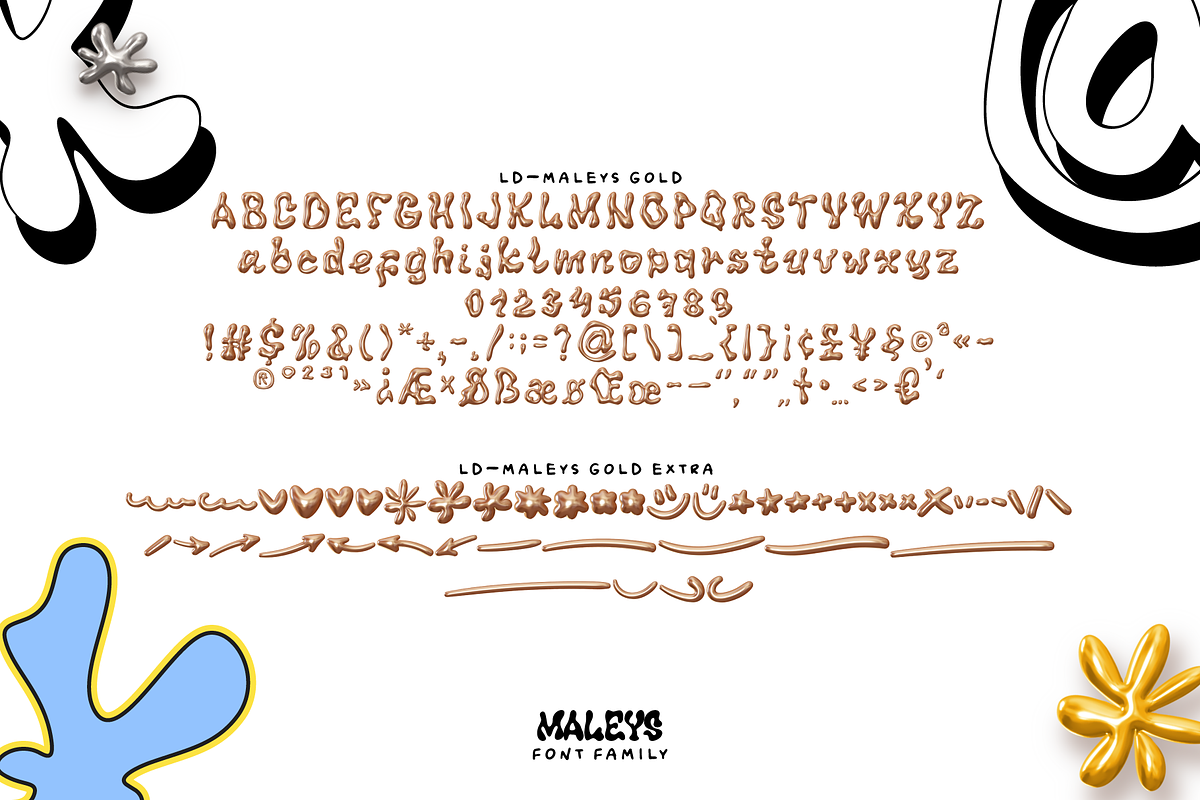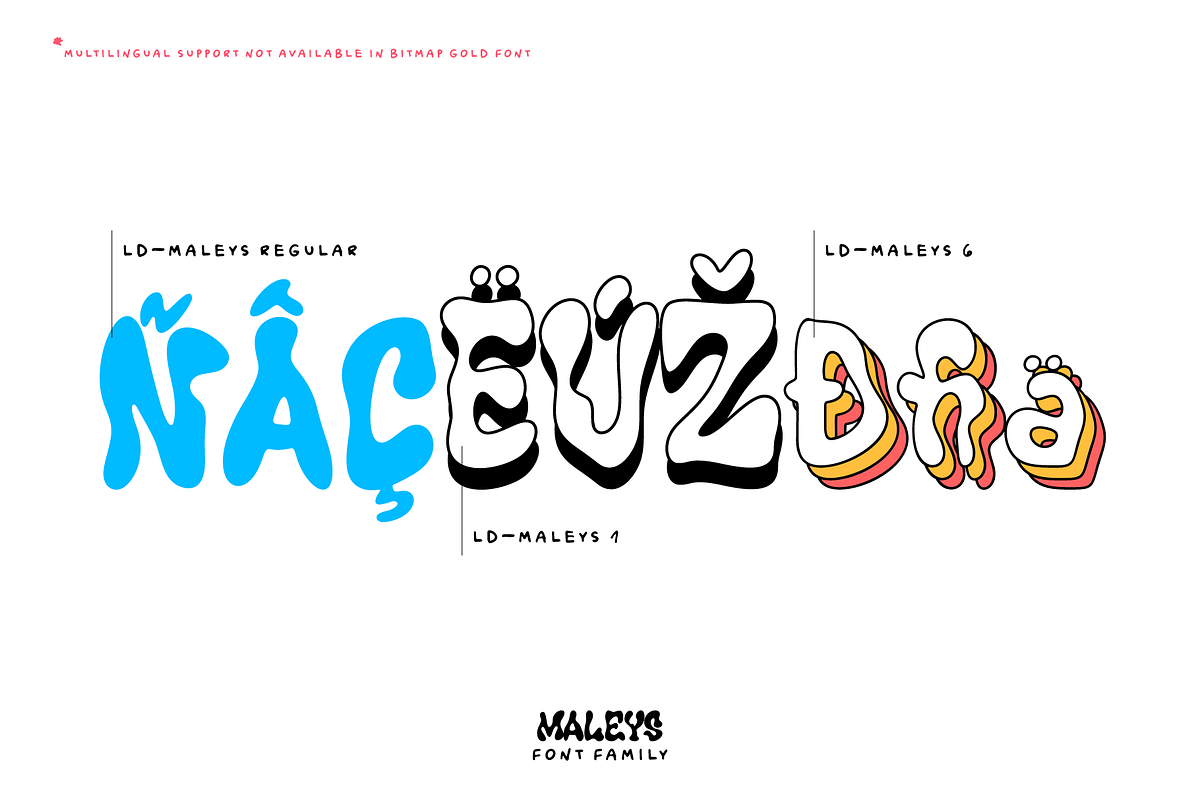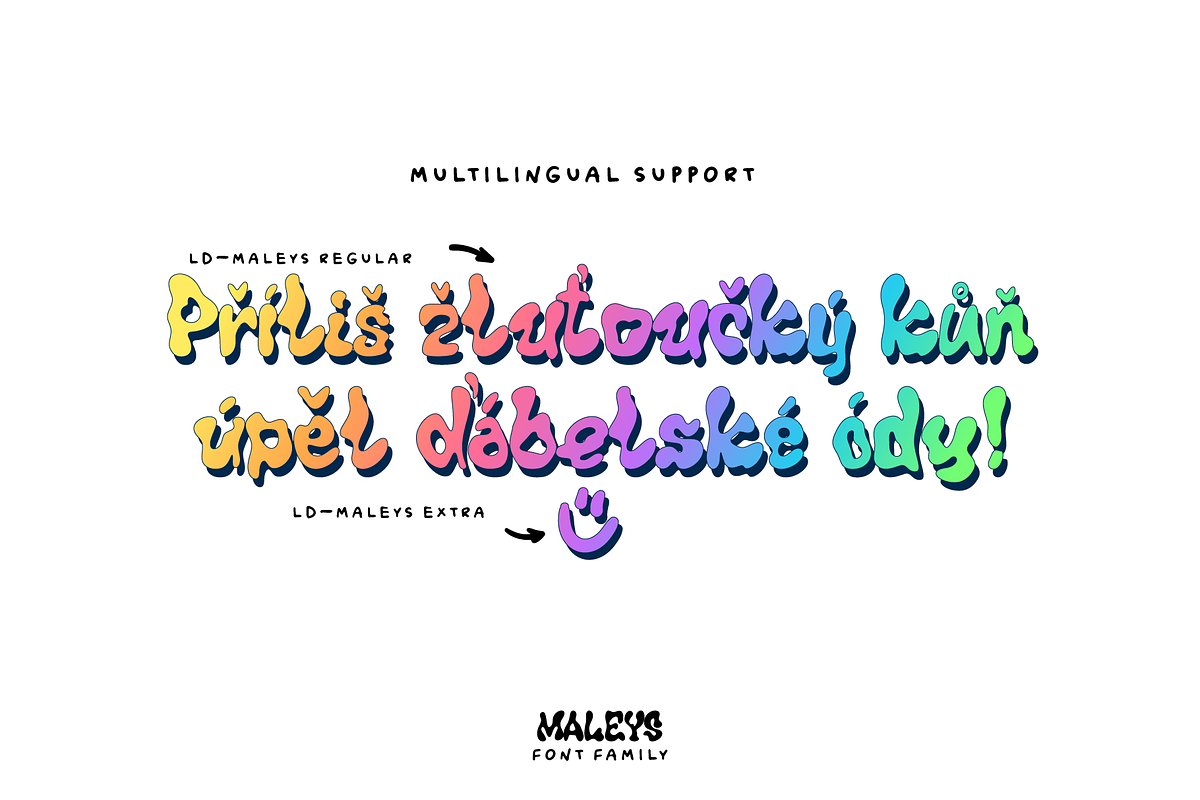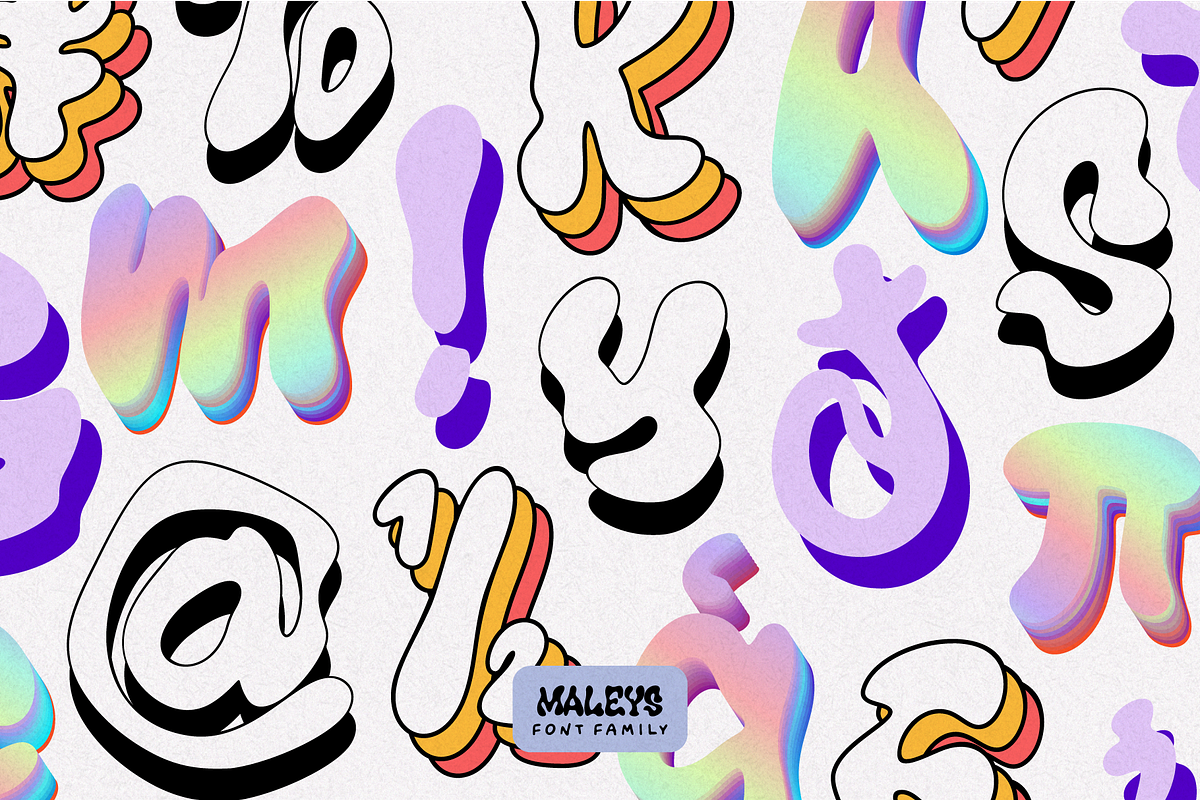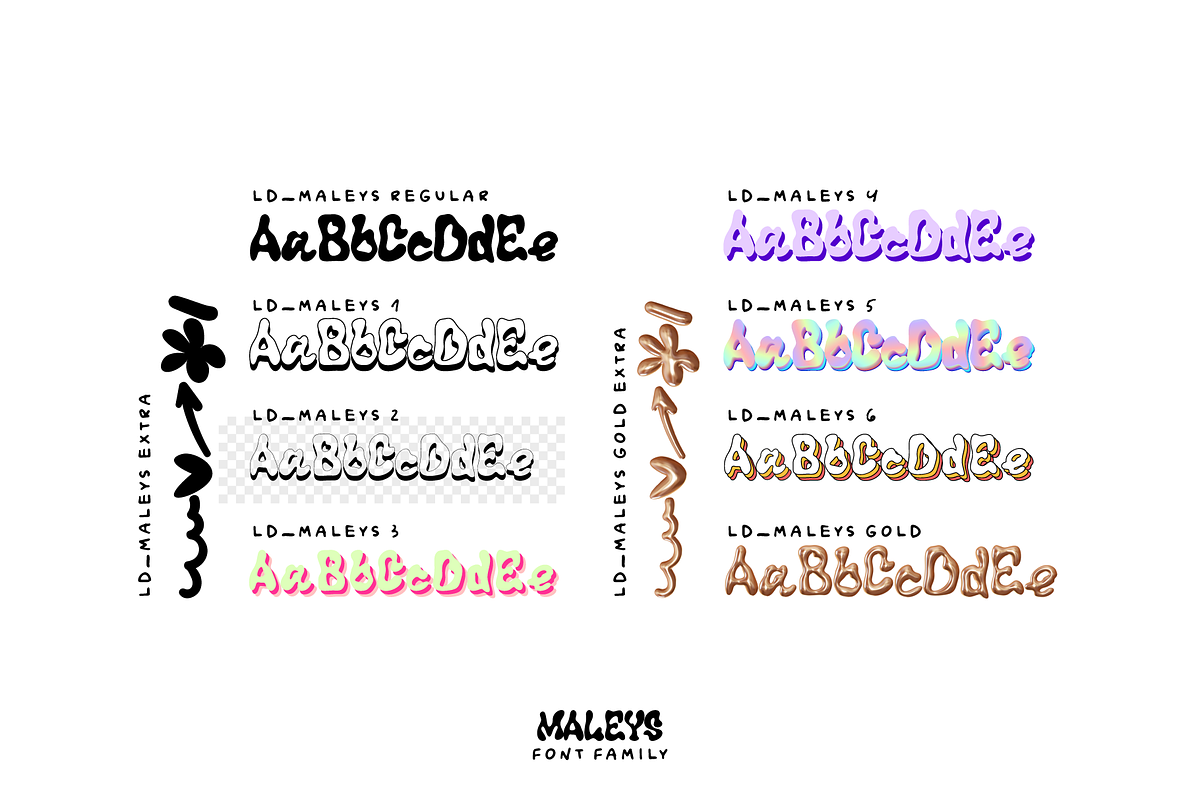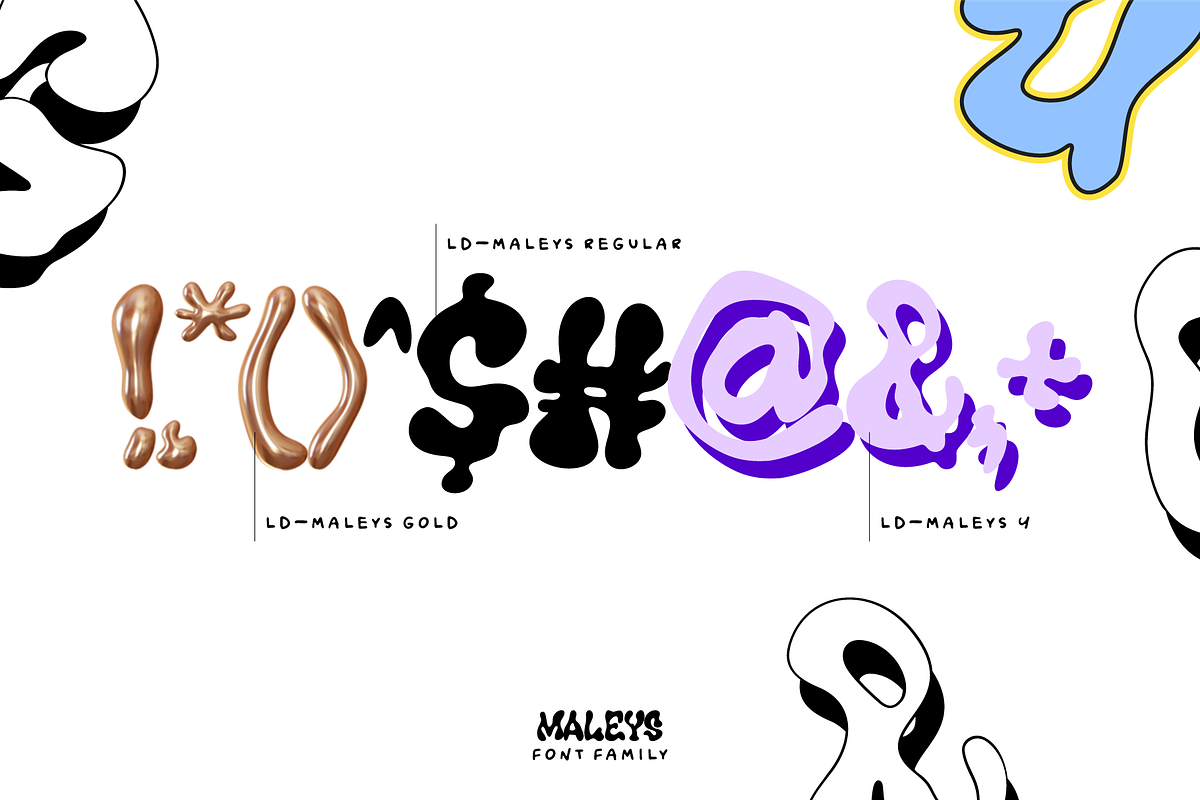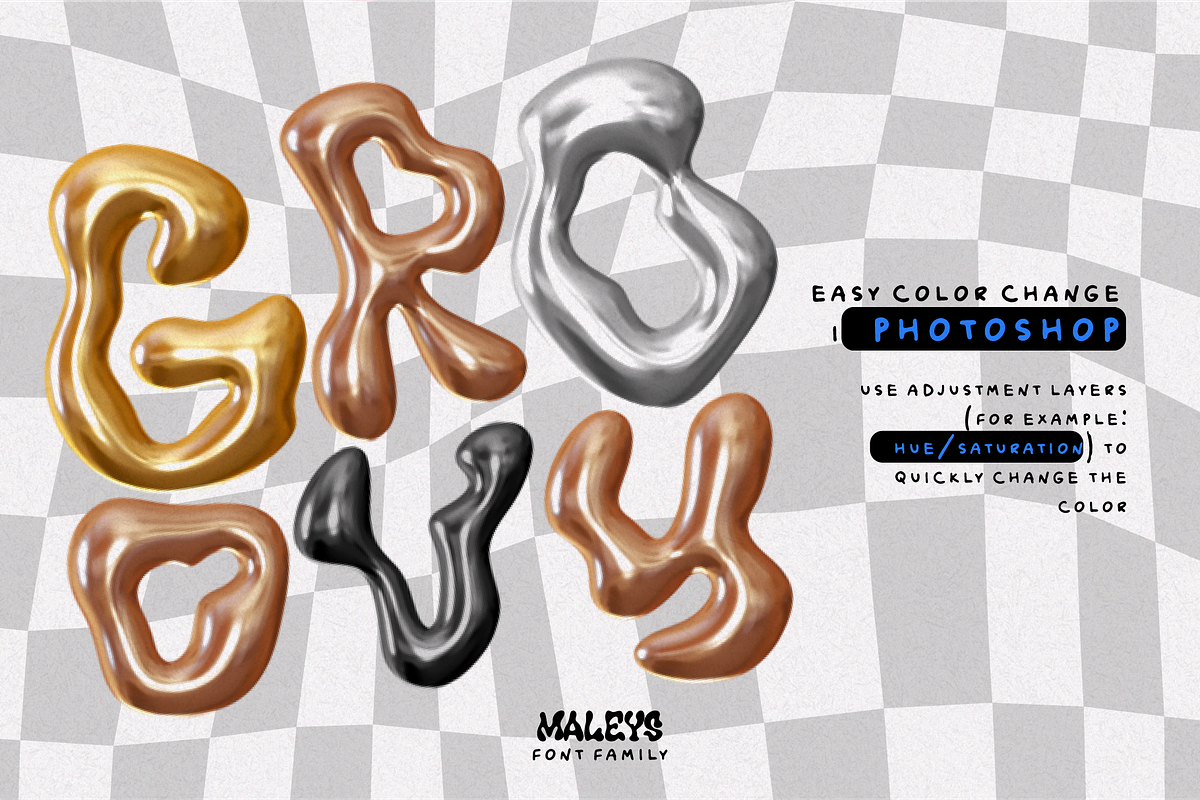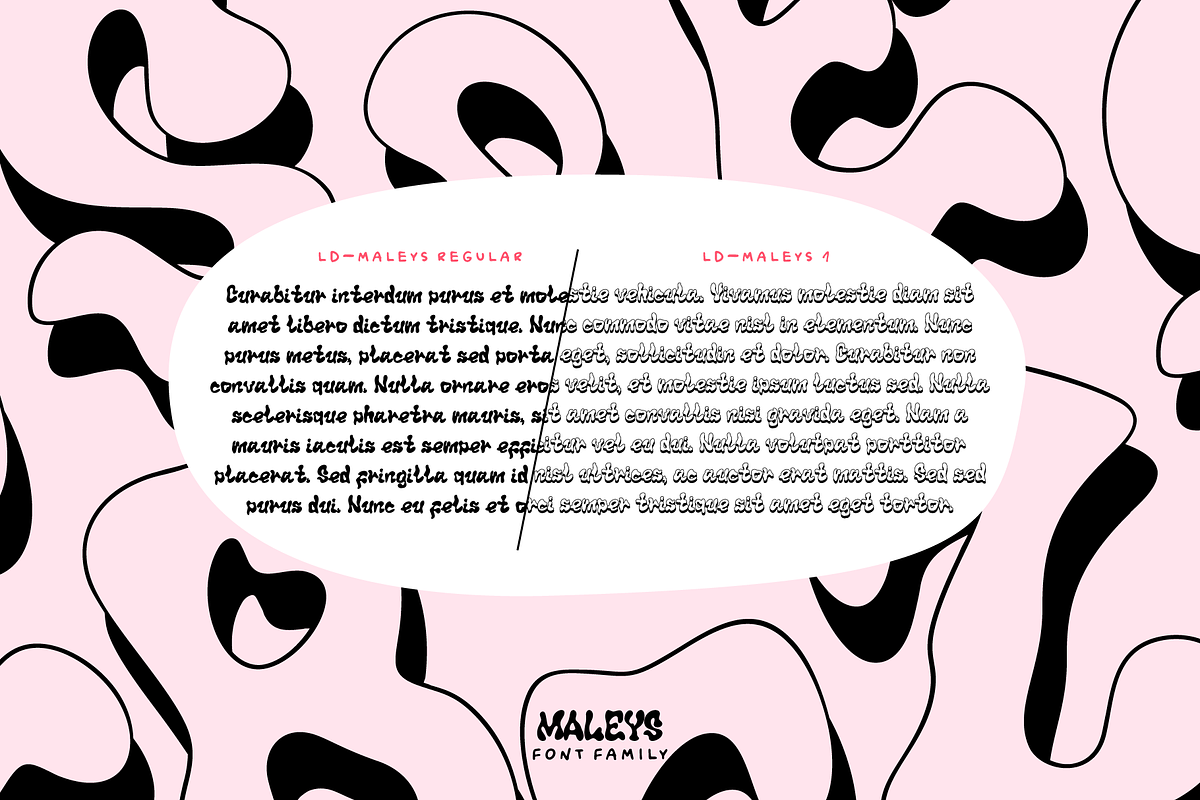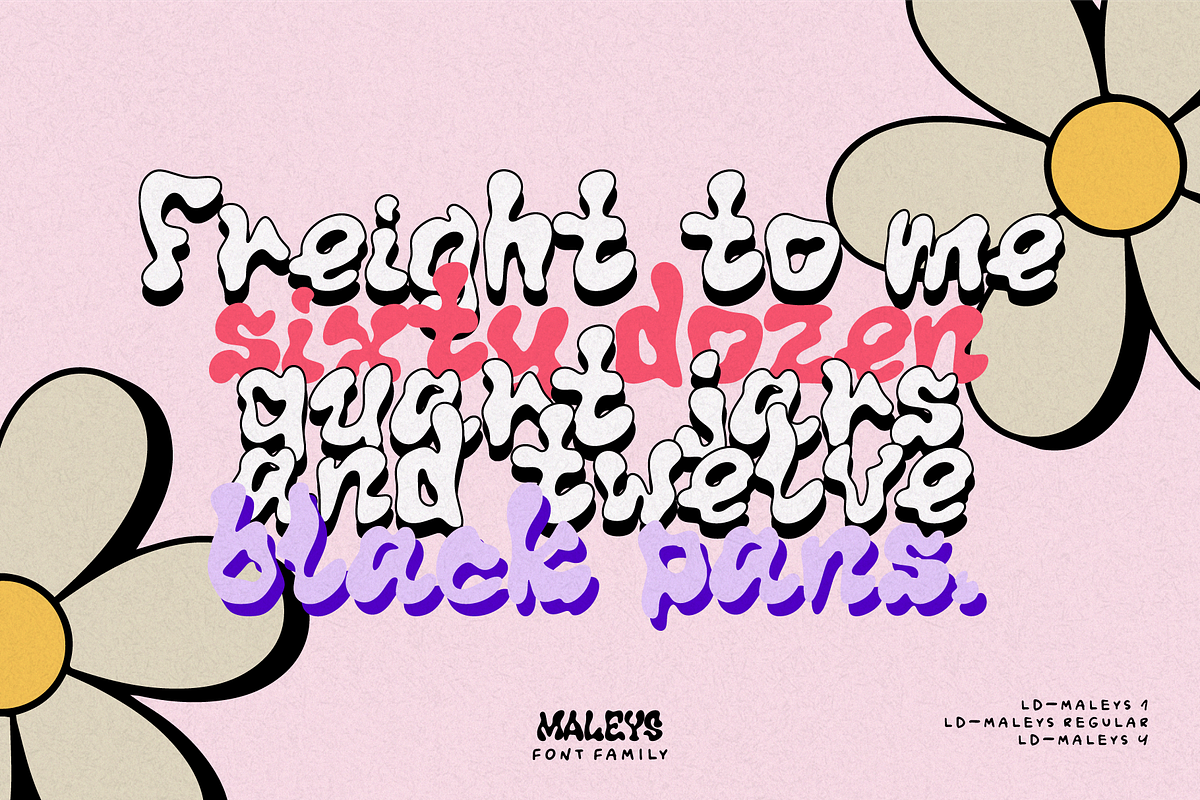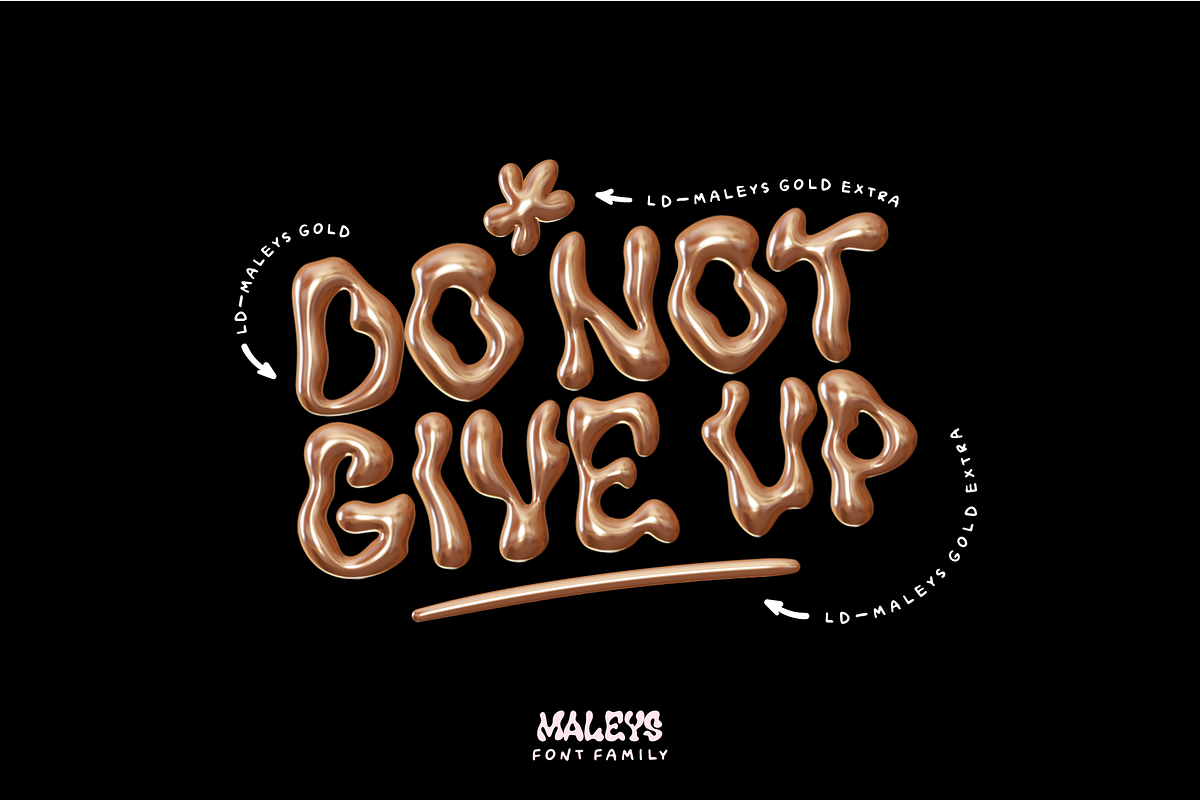
MALEYS. Color OTF SVG Font Family
Welcome to the world of MALEYS color fonts - where trendiness and playfulness meet in dynamic harmony. These fonts give your designs a breath of fresh air, adding originality and inspiration. The main star is a font with a realistic 3D effect, like a living - 3D golden font. It seems to say: 'Look at me!', adds a bright accent and the magic of infantile style to the design.
Collection of fonts where the naive joy of childhood and the explosion of trendiness meet. The font family is perfect for kids and teens. It's like the secret code of today's little mods. Maleys is ideal for a variety of projects. From events and posters to unique design solutions.
Maleys goes perfectly with children's, teenage and infantile clothing. It will turn every design into a bright accent on youth styles. each letter is like a fashion accessory that changes the look of the design. These fonts are your partner for creating unique clothes and stylish accessories, where each letter is like a game in the design world.
Using Maleys you will enjoy your work, awaken your imagination and get a dose of design inspiration.
- Real Golden effect